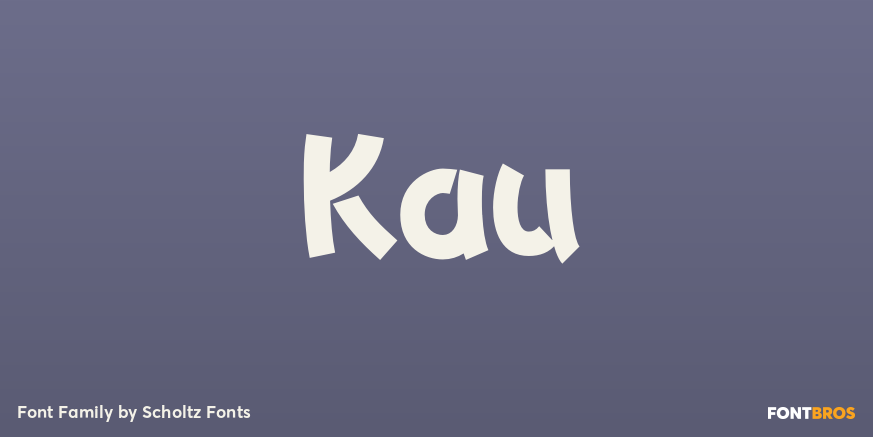
Kau
About Kau
Kau is a quirky, sans serif display font in two weights. Its funky, stencilled outline bursts onto the page with in-your-face energy, just demanding to be noticed. Kau Black is big and bold, specially crafted for posters, headlines, ads and logotypes.…